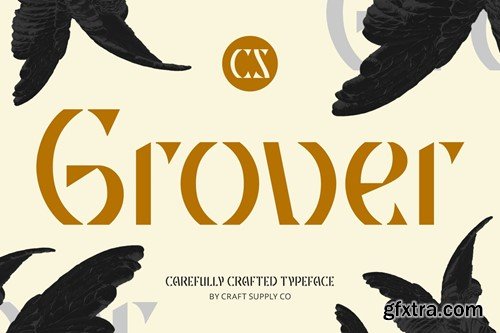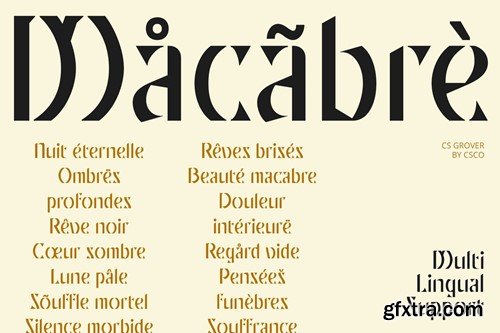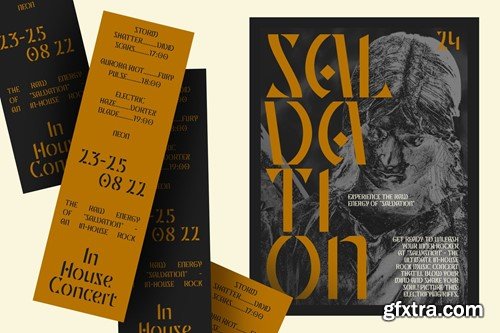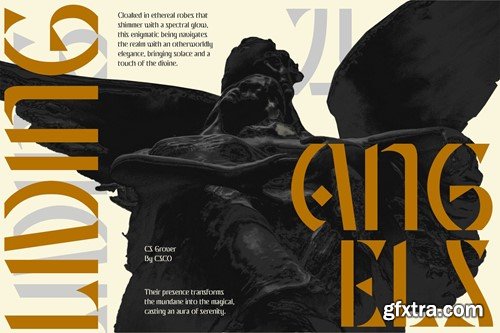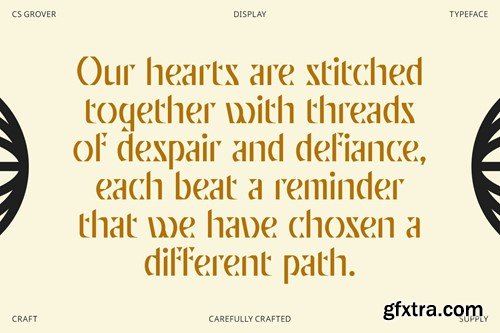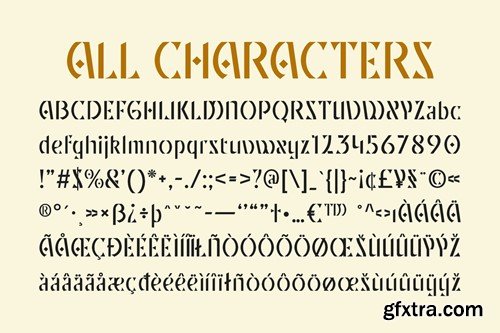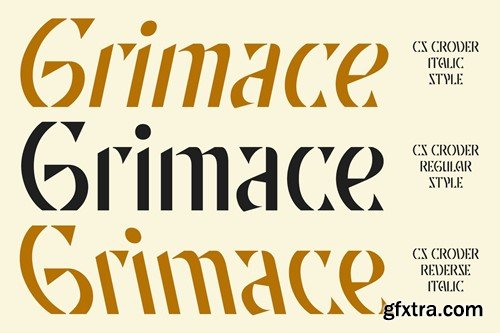
CS Grover – Display Font: Innovative Design with Striking Visual Impact Modern Display Font with Creative Shapes CS Grover is a modern display font that seamlessly blends innovative design with contemporary aesthetics. Featuring experimental forms and striking contrasts, this font is crafted to make a bold statement in any design. Its geometric elements, sharp angles, and unique structures set it apart, providing a fresh and dynamic look. Geometric Elements and Unique Structures The font’s design incorporates distinctive geometric elements and sharp angles, creating a visually engaging and memorable appearance. These experimental forms add a layer of creativity and modernity, making CS Grover perfect for projects that aim to capture attention and convey a strong visual impression. Ideal for High-Impact Projects CS Grover excels in applications where a creative touch is essential. Whether used in advertisements, posters, or logos, this font delivers a powerful and captivating presence. Its strong visual impact makes it suitable for any project that requires standout appeal and a distinctive character. Captivating and Contemporary Aesthetic With its innovative design and contemporary flair, CS Grover is perfect for projects seeking to break the mold. Its striking contrasts and creative shapes ensure that it grabs attention and leaves a lasting impression. Ideal for branding, promotional materials, and any design that demands a bold, modern touch, CS Grover brings an element of excitement and originality. What you get : Features : If you have any inquiries or need assistance, please feel free to contact us. We appreciate your support in enhancing your creative projects! Best regards, Craft Supply Co.